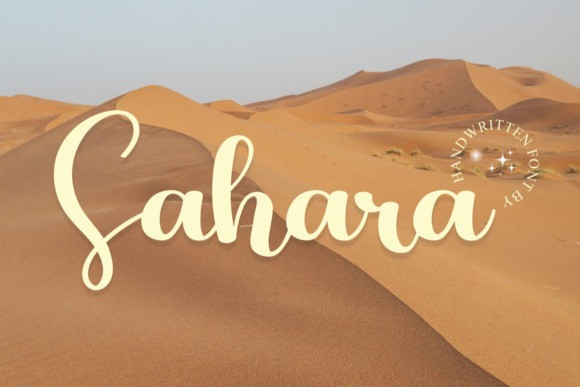
Sahara Script Font is a lovely script font featuring charming, playful characters that seem to dance along the baseline. Add this font to your most creative ideas, and notice how it makes them stand out!
Sahara